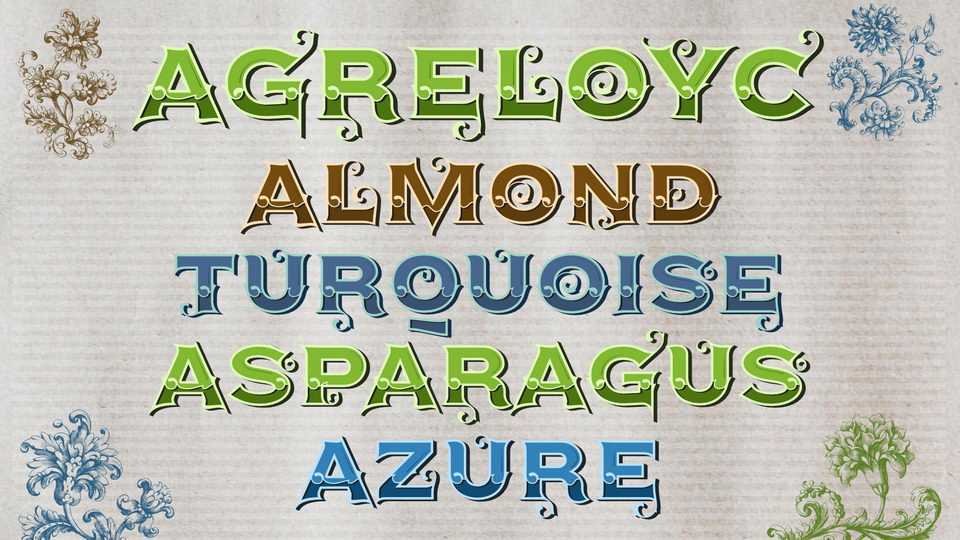
Download Agreloyc font, a beautuful decorative ornamented color SVG typeface with four variations: Almond, Asparagus, Turquoise and Azure. Agreloyc font looks amazing for vintage design and lettering.
Designer: Grzegorz Luk